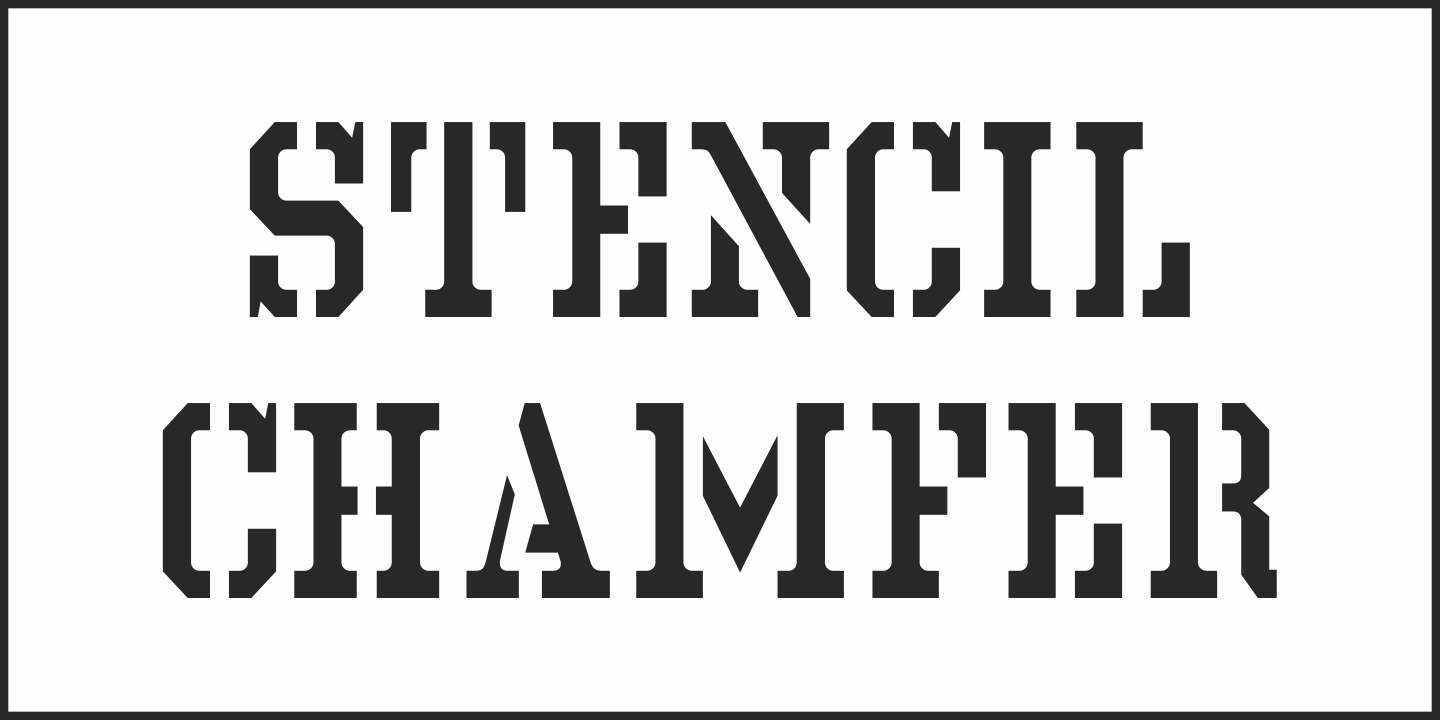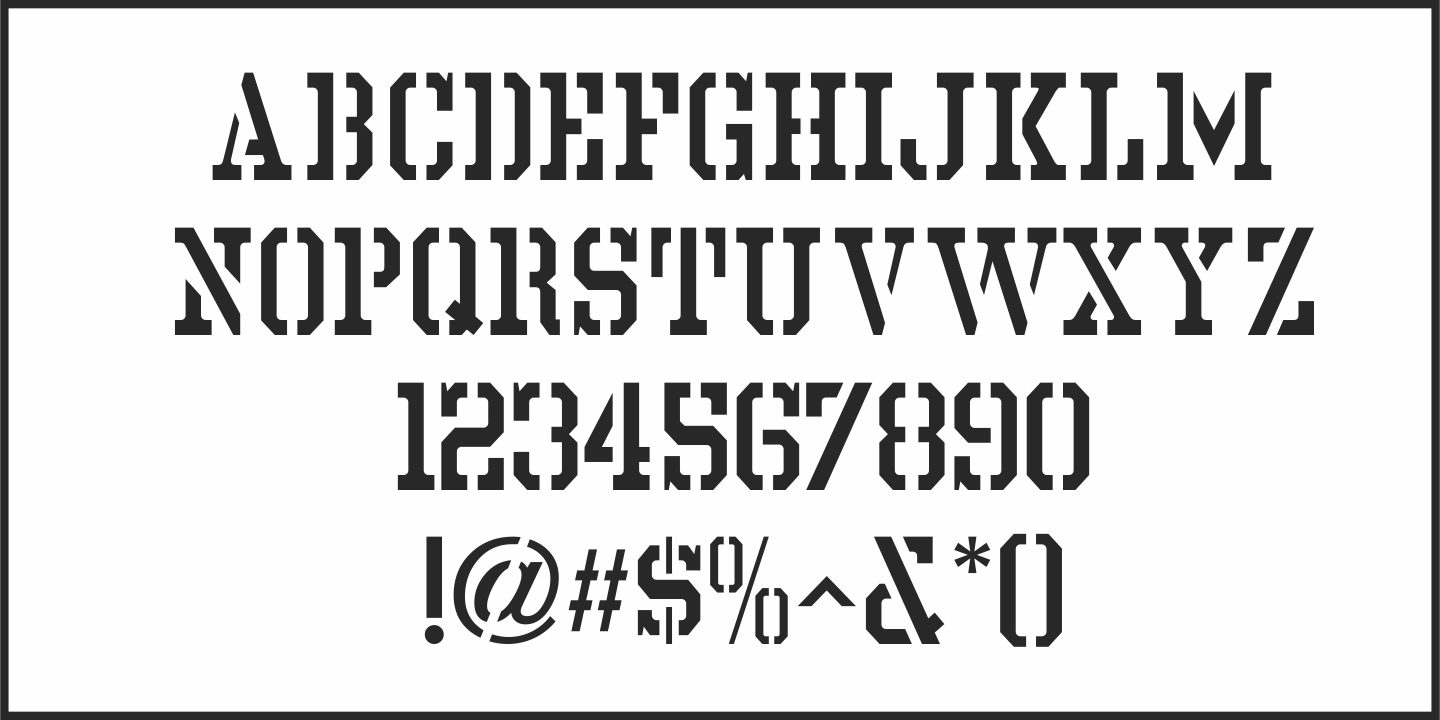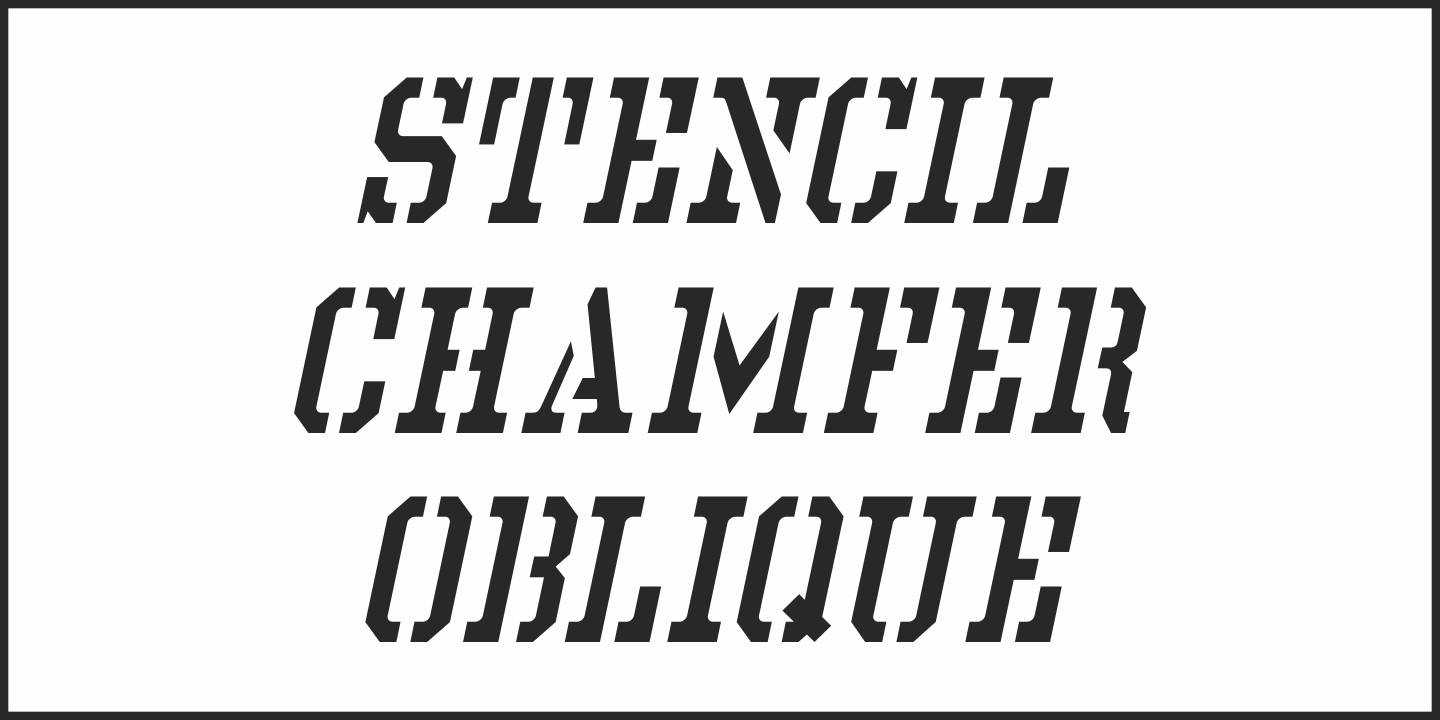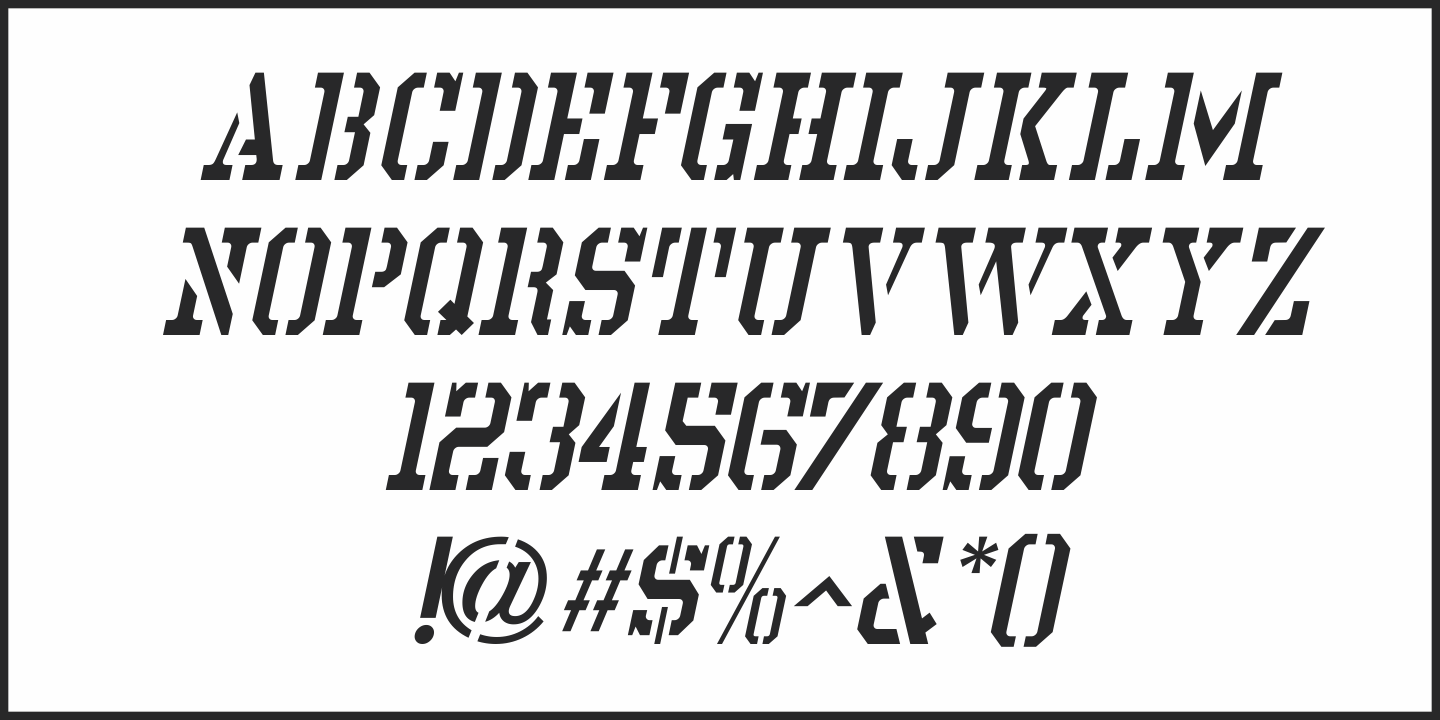
Stencil Chamfer
The packing information stenciled on an antique wooden crate included a slab serif type style with chamfered corners. This design has now been re-drawn as the digital typeface Stencil Chamfer JNL, which is available in both regular and oblique versions.
Oblique Regular
Stencil Chamfer Regular by Jeff Levine Fonts